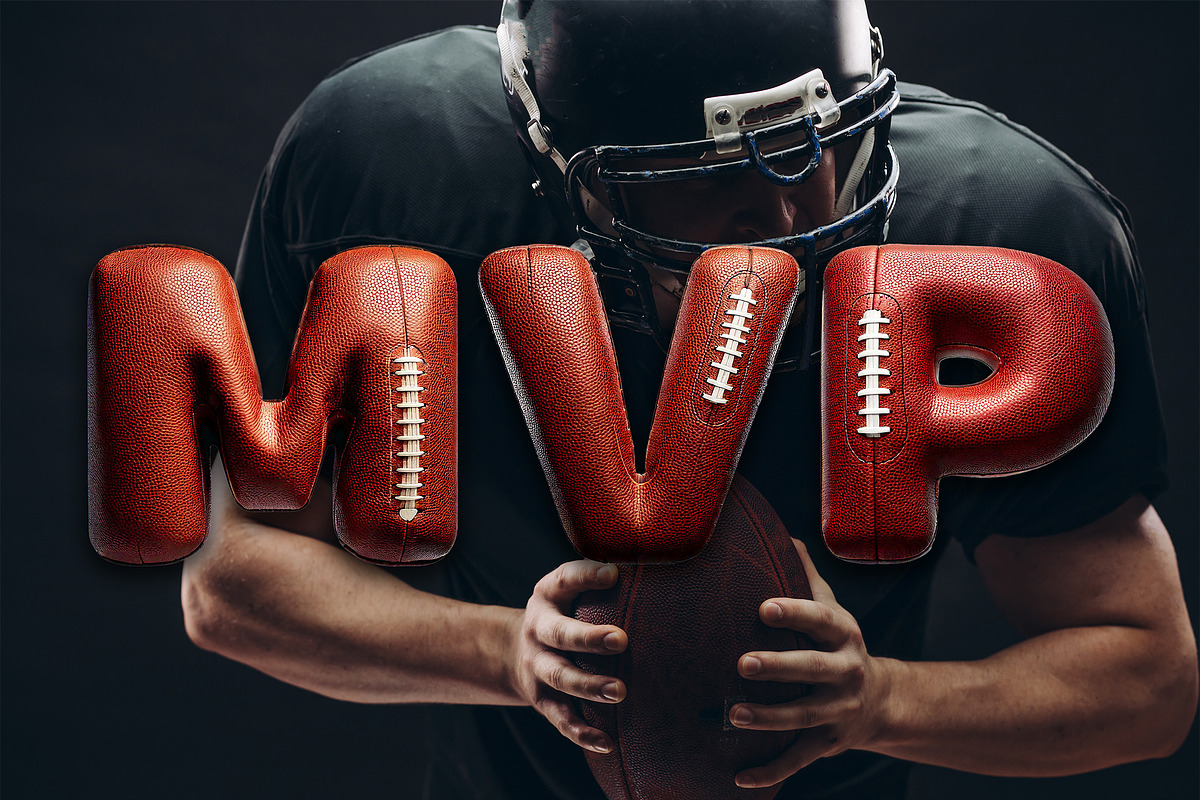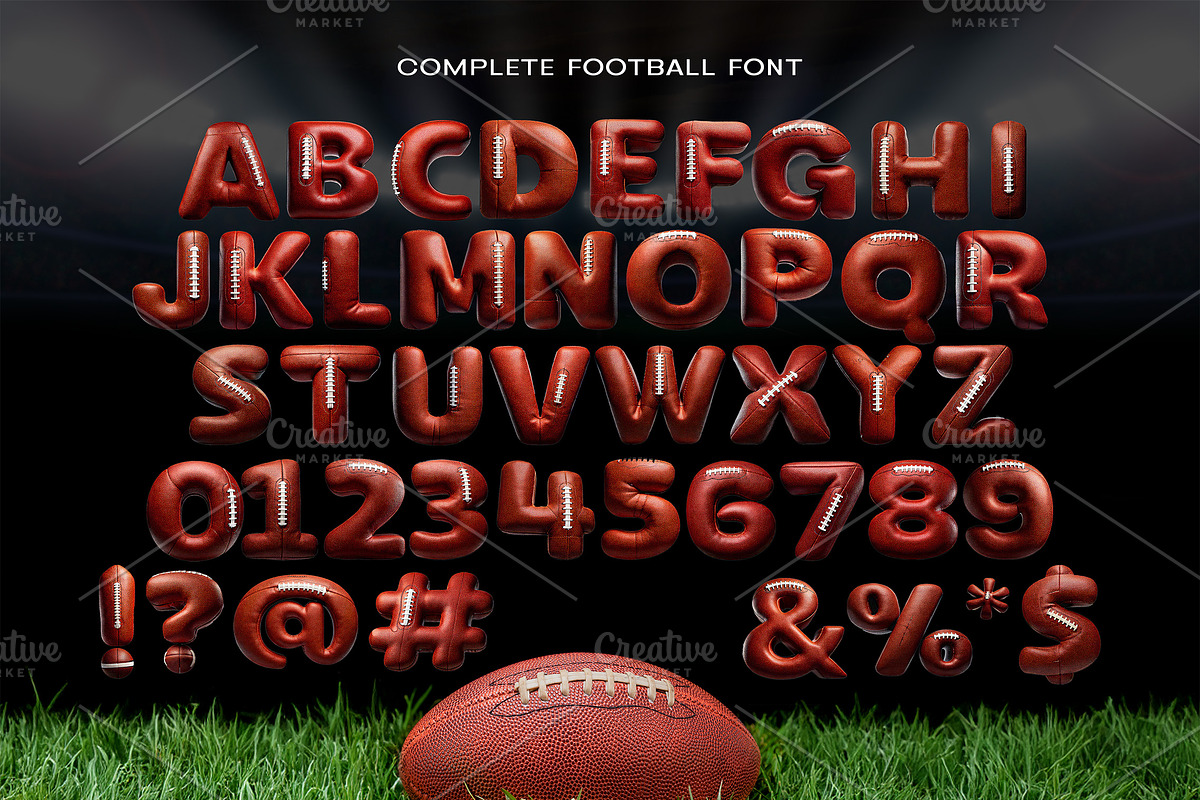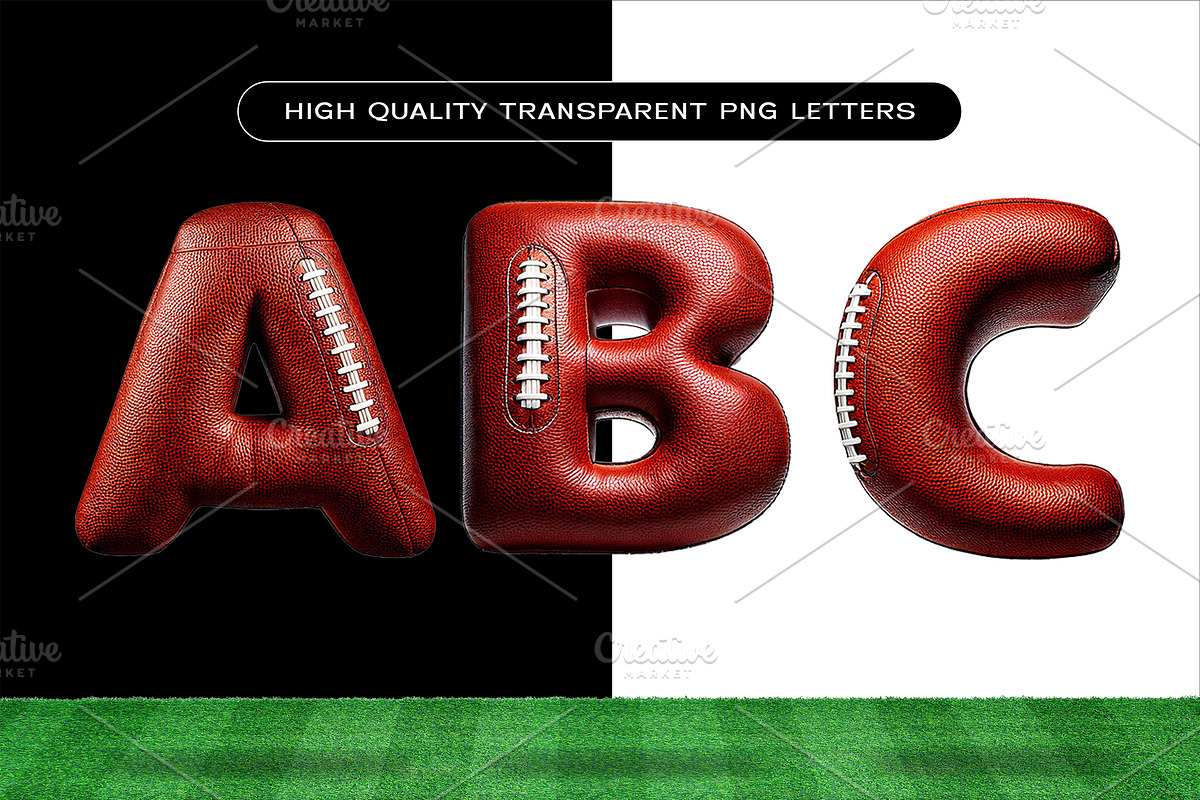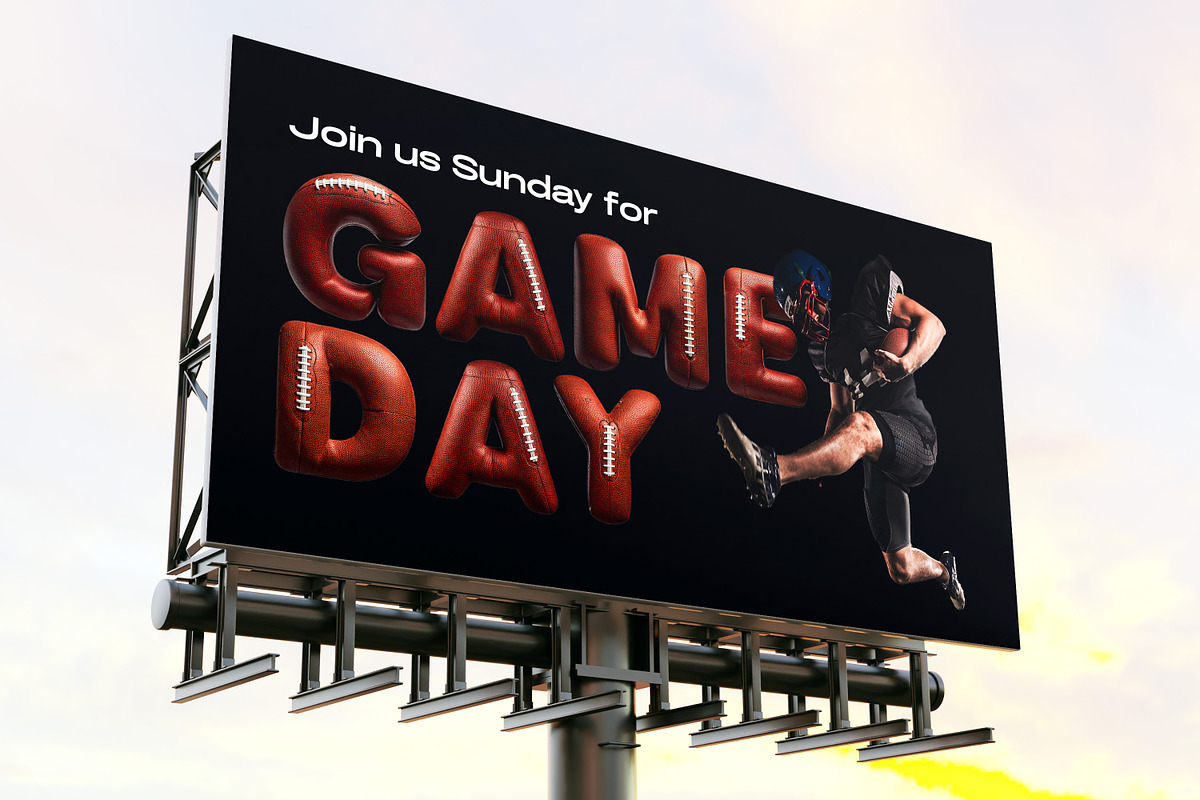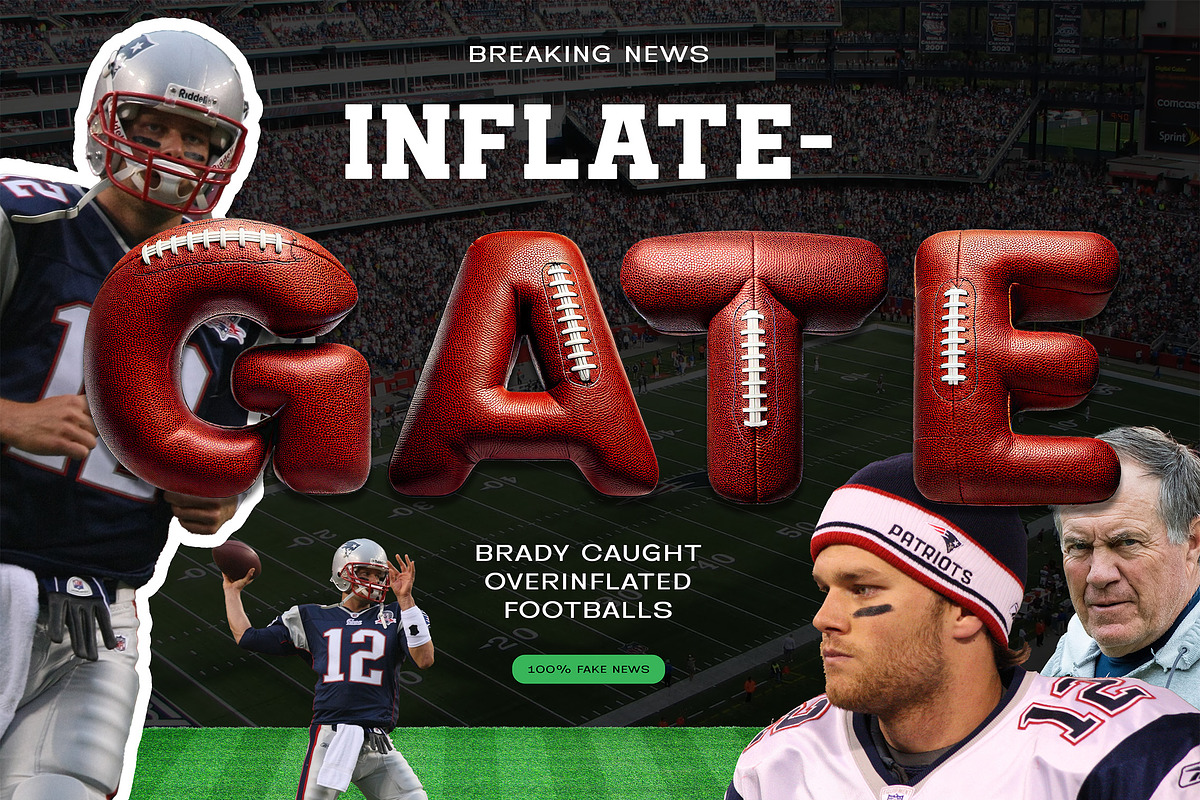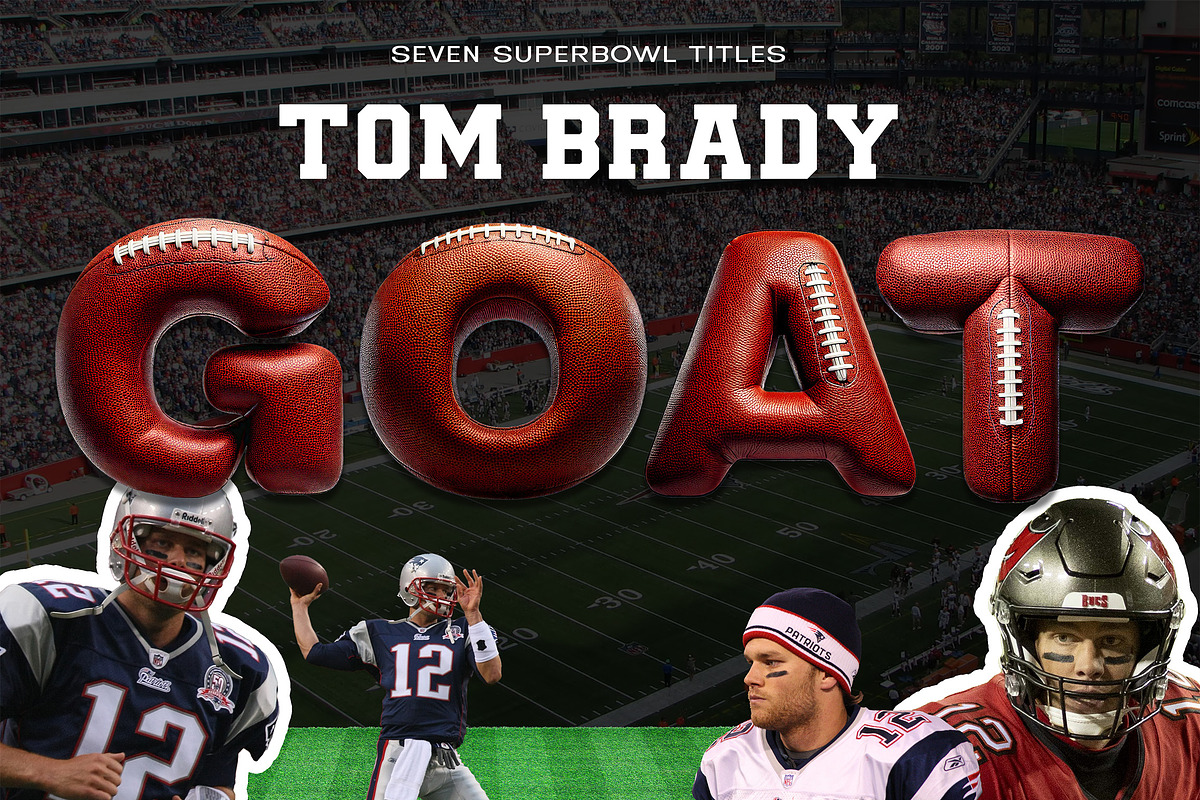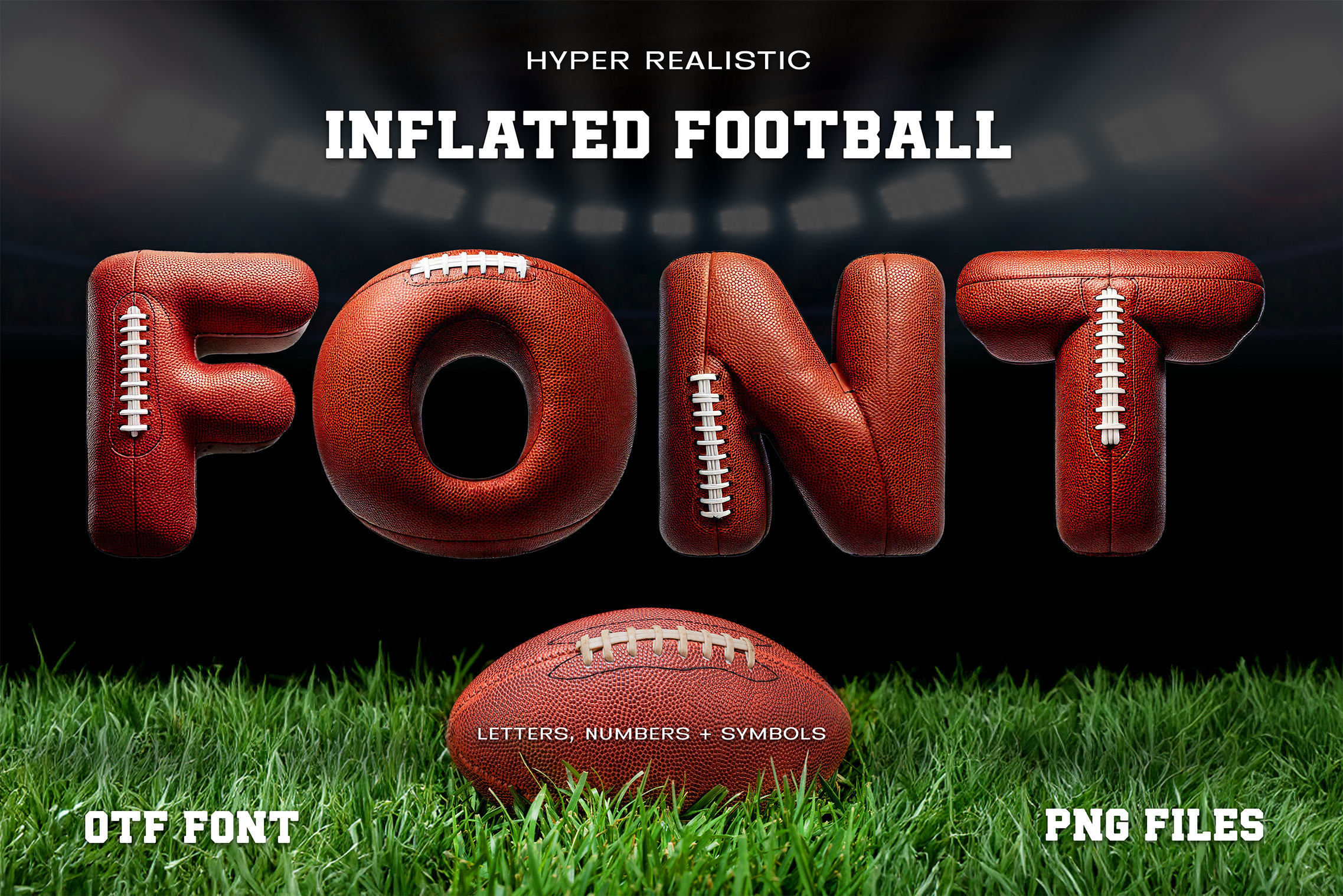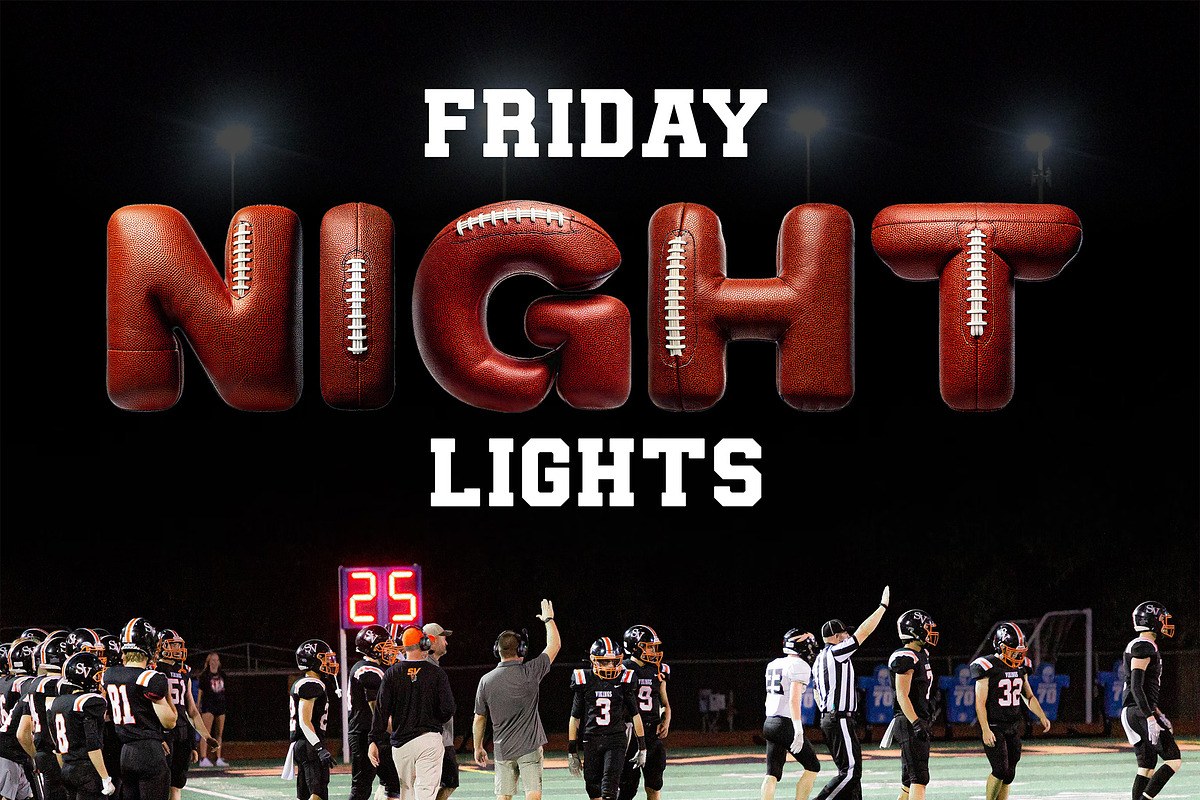
Inflated Football | Letters & Font
Get ready to score big with the 3D Inflated Football Font—a bold typeface where every letter is crafted to look like an inflated NFL football. Each character captures the rugged texture of pigskin leather, complete with laces and seams that bring every letter to life. This font is a game-changer for sports-themed designs, whether you’re crafting for Super Bowl parties, team branding, or fan merch.
From touchdown celebrations to Super Bowl graphics, this football-inspired font kicks creativity into high gear. Perfect for sports enthusiasts, designers, and fans alike, it’s a font that’s all about the love of the game. Make every design a winner with letters that look straight out of the end zone!
Details: Gear up for the ultimate design experience with the 3D Inflated Football Font! This high-resolution pack includes uppercase letters, numbers, and basic punctuation, all photorealistically designed to capture the iconic look of a football.
Bring the excitement of the gridiron to your designs with this bold and playful typeface. It’s the ultimate MVP of fonts—because when it comes to football, the details make all the difference!